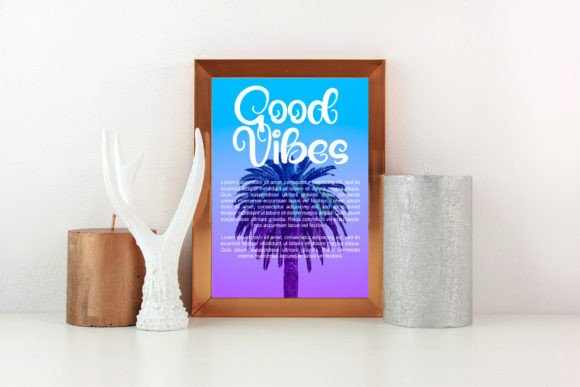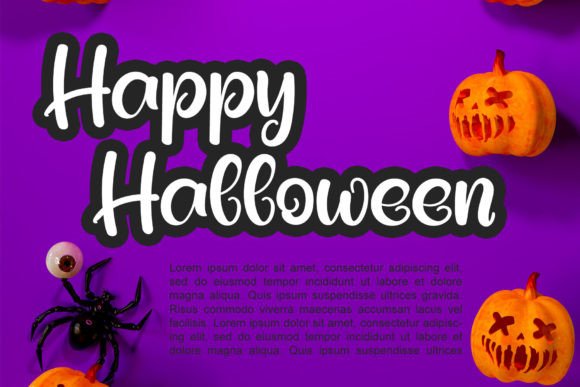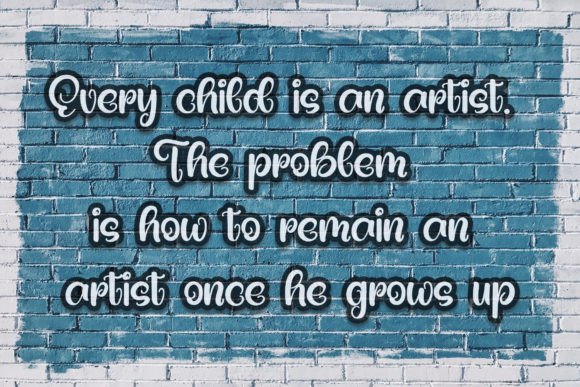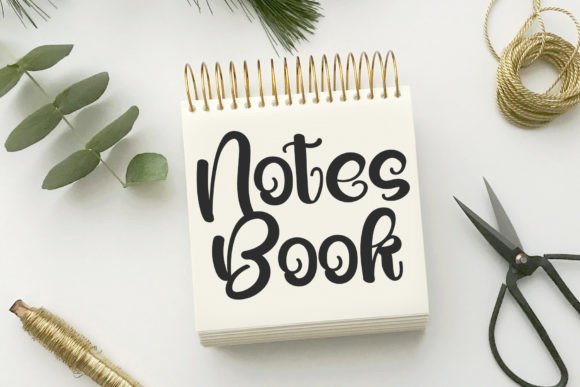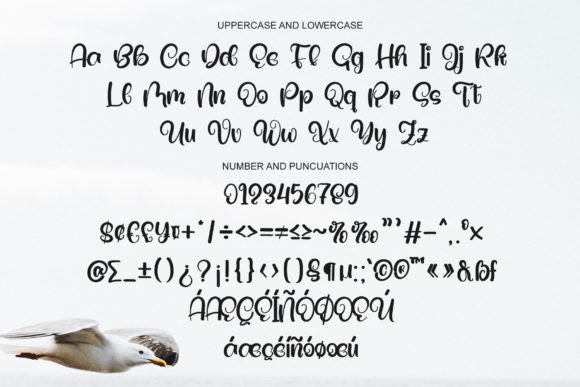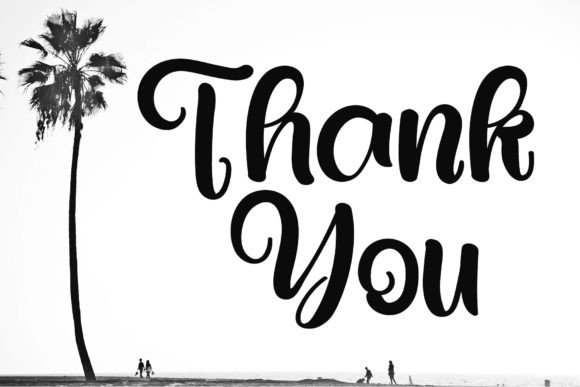
The Beauty of Beauty Culture Font: A Designer’s Delight
I’ll never forget the time I was working on a branding project for a new boutique, and I just couldn’t find the right font to capture the essence of the brand. The client wanted something elegant, yet playful, and I was determined to deliver. That’s when I stumbled upon the Beauty Culture font, and it was love at first sight! 💕
This unique, round lettered handwritten font has a way of making any design look effortlessly chic. In this article, I’ll share my experience with Beauty Culture font, its features, and how to make the most of it in your designs.
- ✨ Unique and elegant handwritten style
- 💫 Perfect for titles, invitations, letters, and more
- 🎨 Great for branding, packaging, and digital designs
While Beauty Culture font is amazing, there are a few things to keep in mind:
- ⚠️ Some letters may have slight inconsistencies in width, which can affect alignment
- 🤔 Limited availability of stylistic alternates, but still plenty of options to play with
The story behind Beauty Culture font is one of passion and creativity. The designer, inspired by the world of beauty and fashion, set out to create a font that would capture the essence of elegance and sophistication. With a keen eye for detail and a deep understanding of typography, they carefully crafted each letter to produce a truly unique and beautiful font.
| Font Name | Beauty Culture Font |
| Author | Bintang Studio |
A: Beauty Culture font is versatile and can be used for a variety of designs, including titles, invitations, letters, and more.
A: While Beauty Culture font has some stylistic alternates, it’s primarily a single-style font. However, you can still experiment with different OpenType features to add some variety to your design.